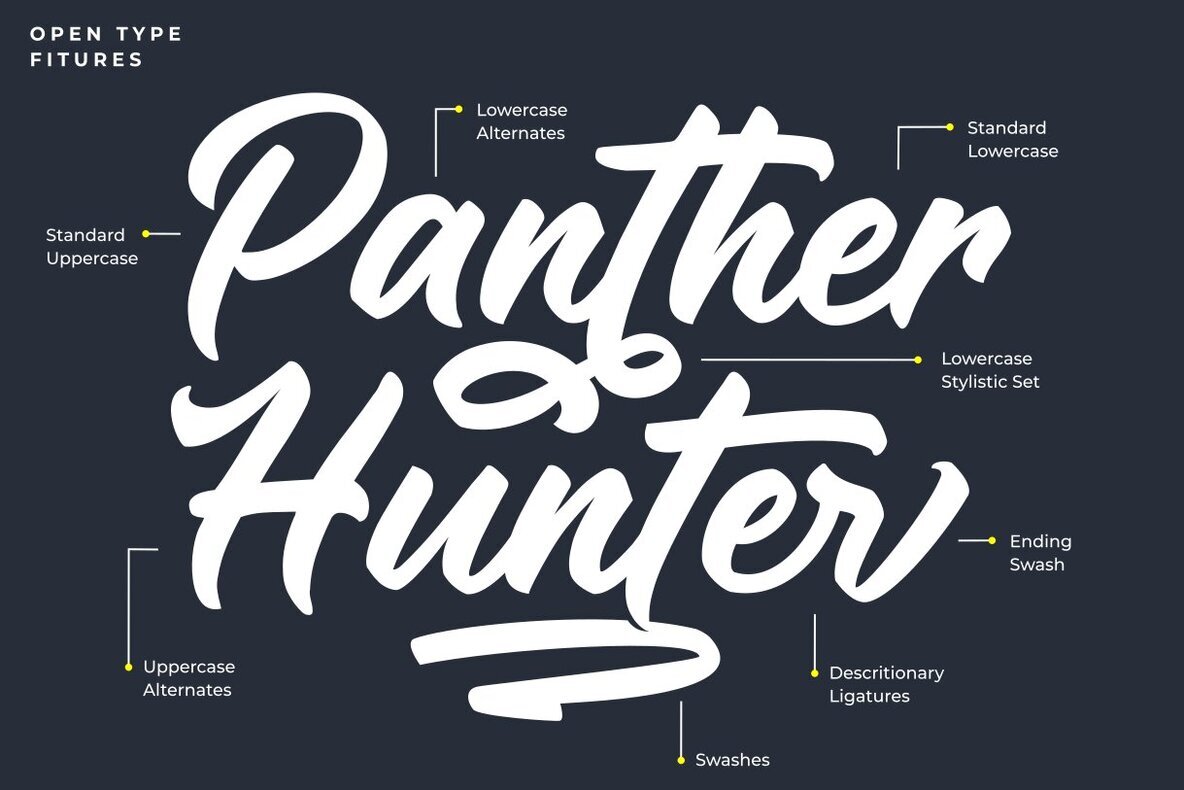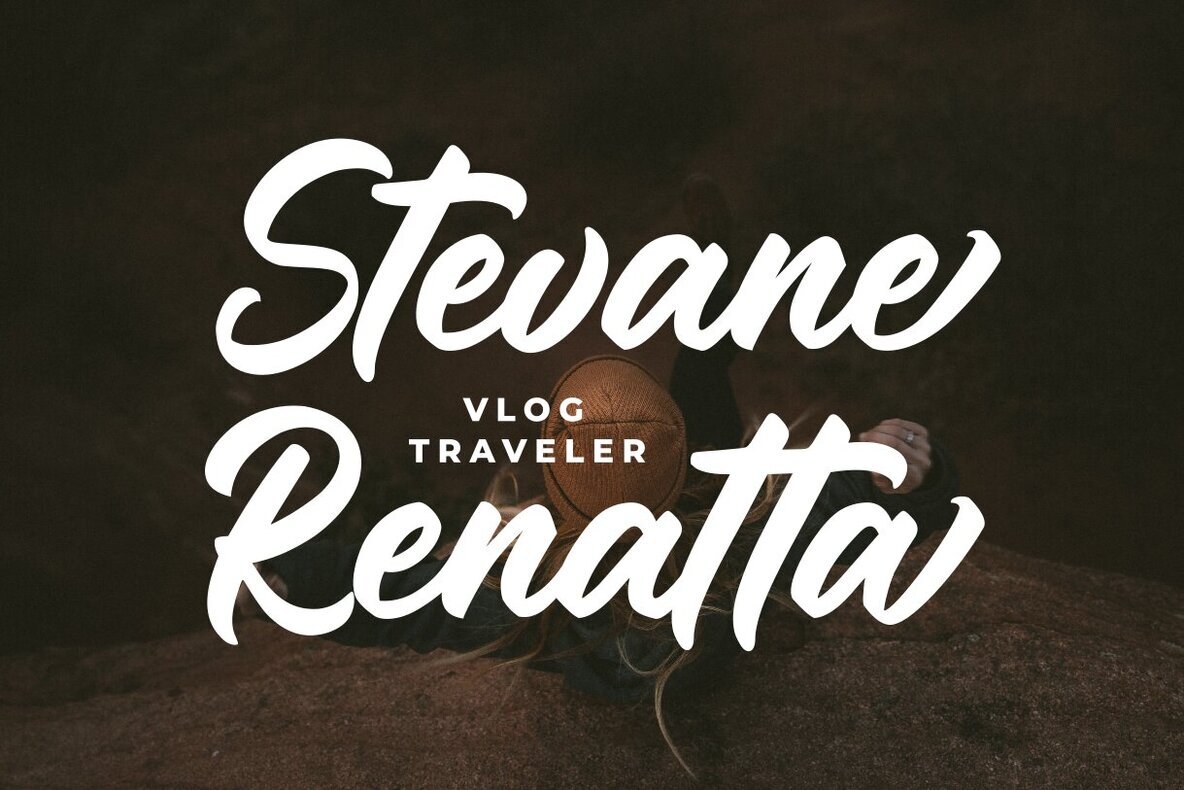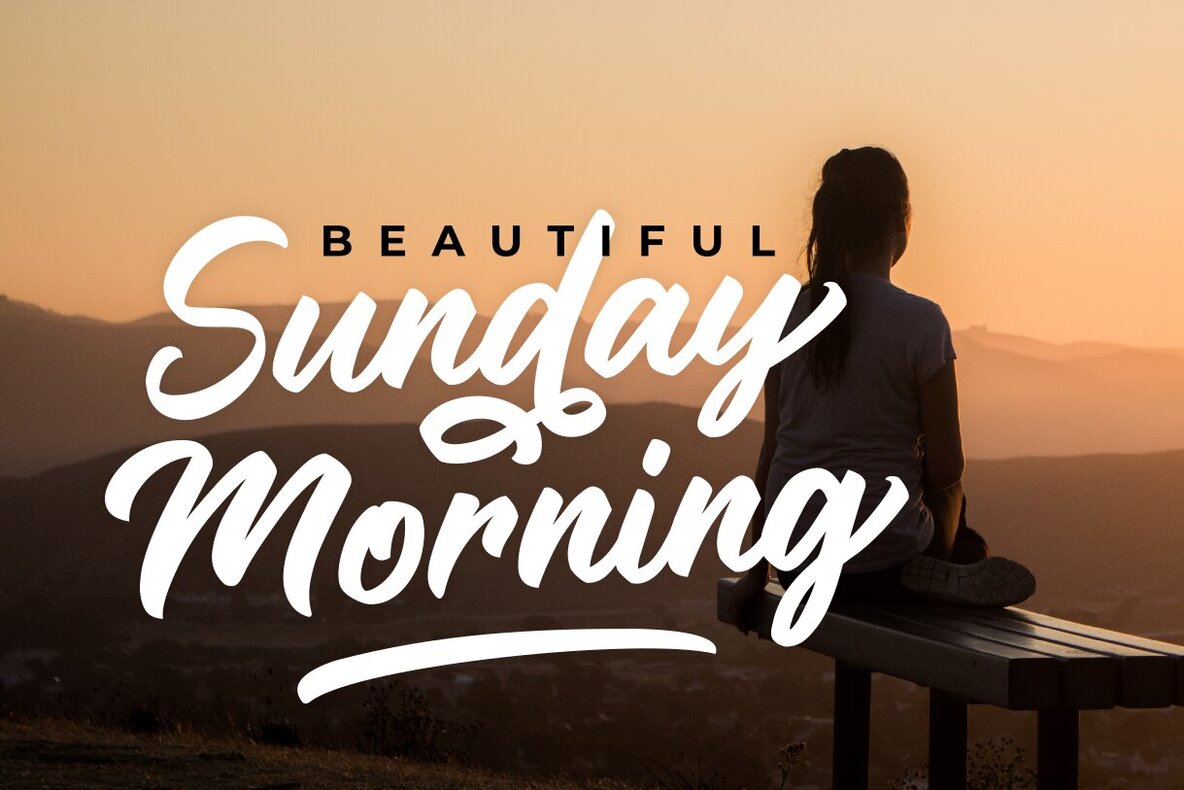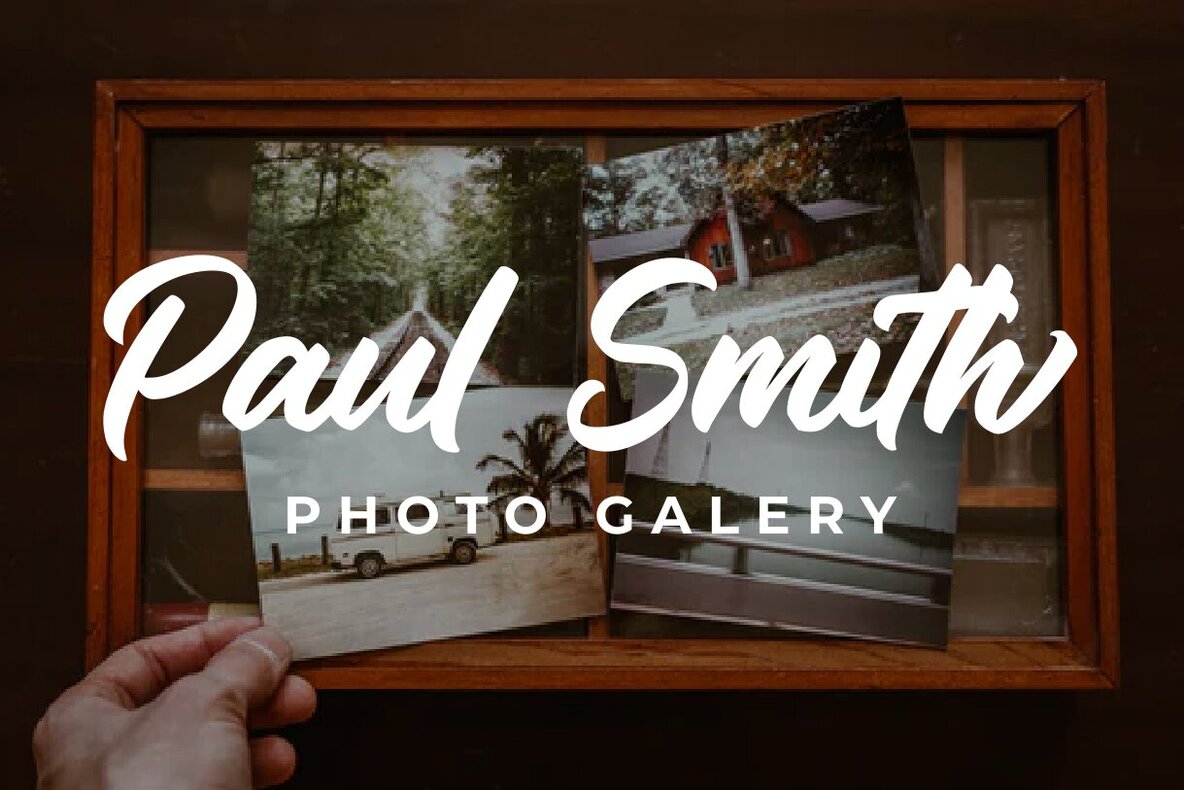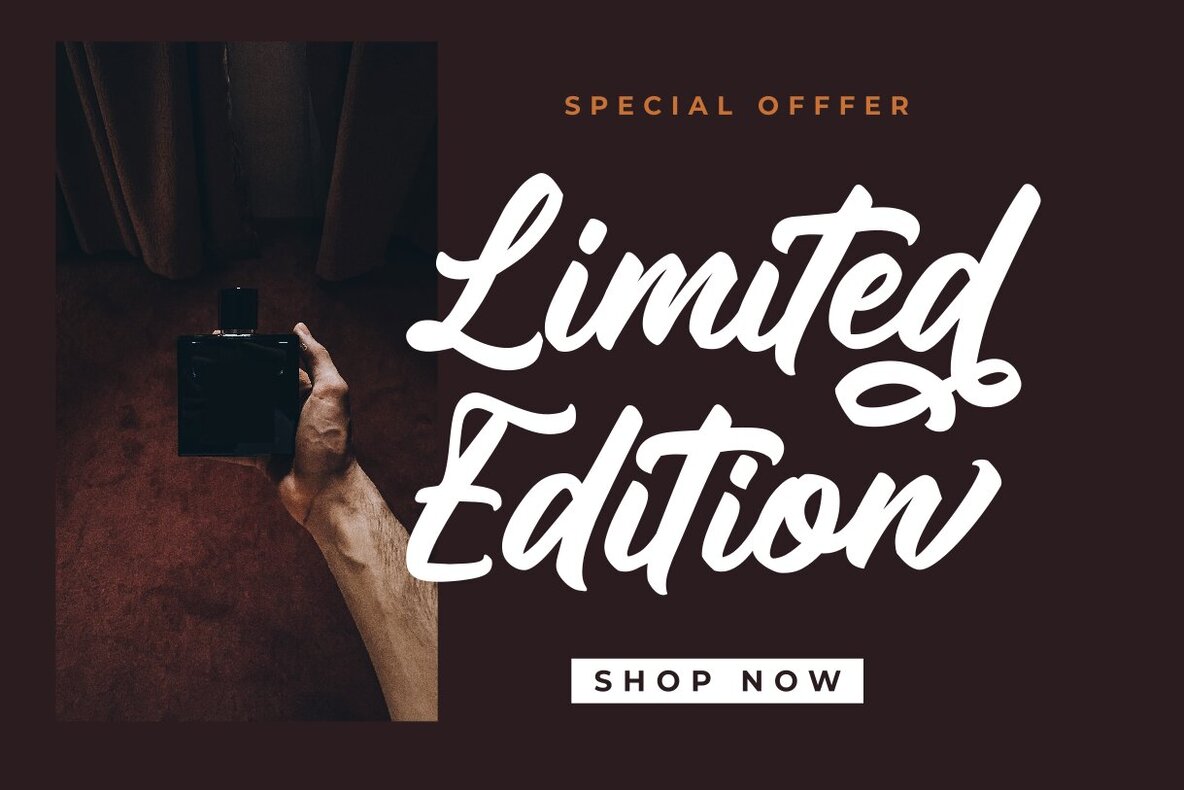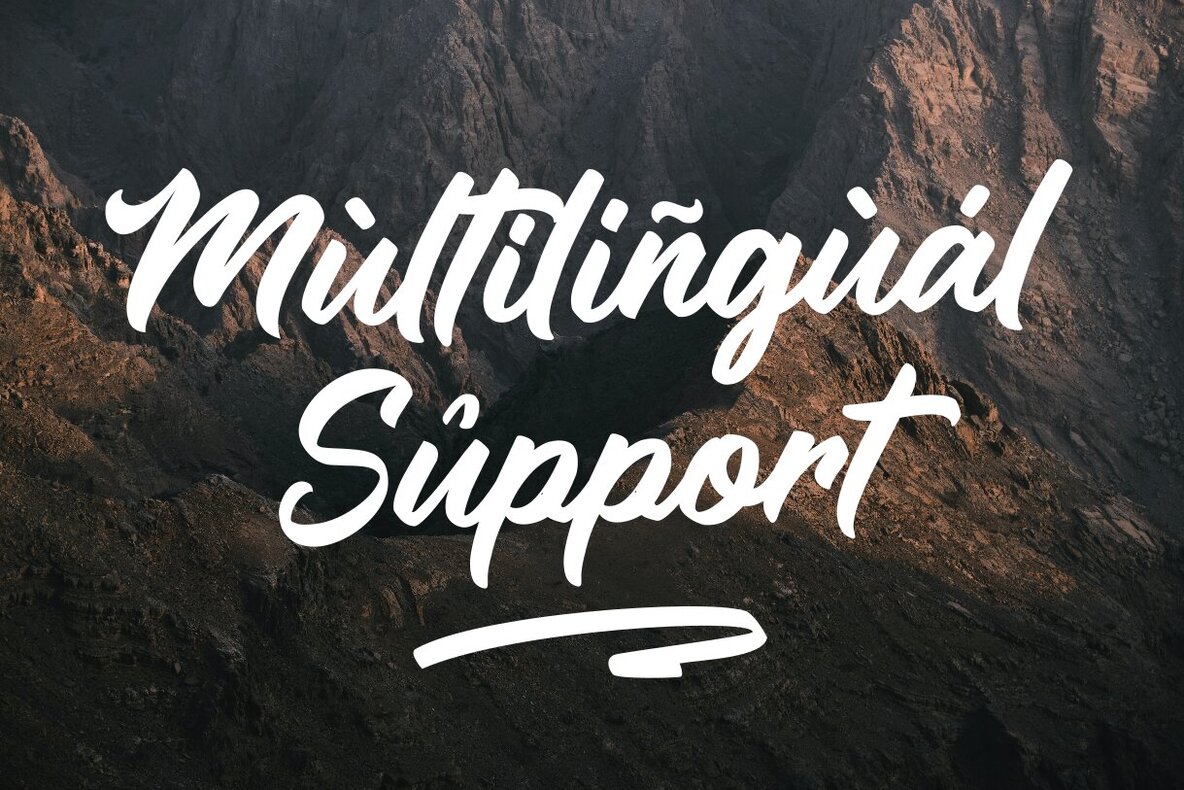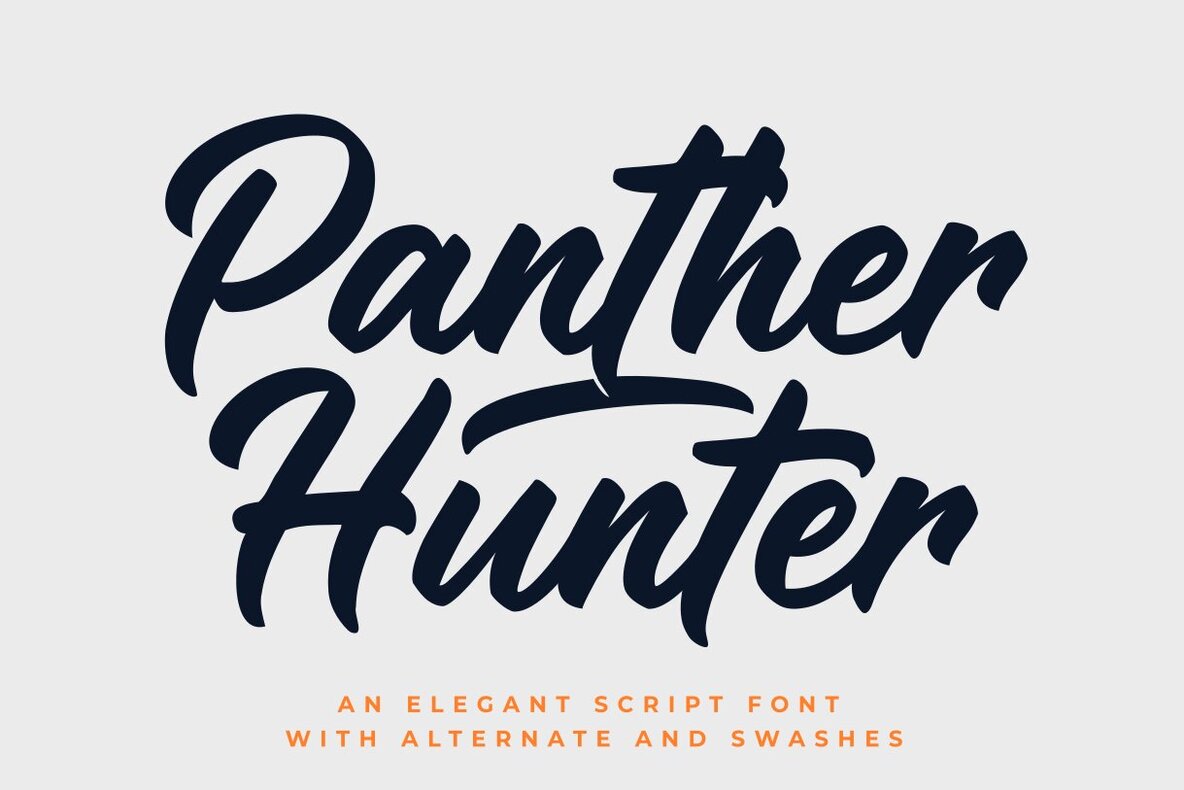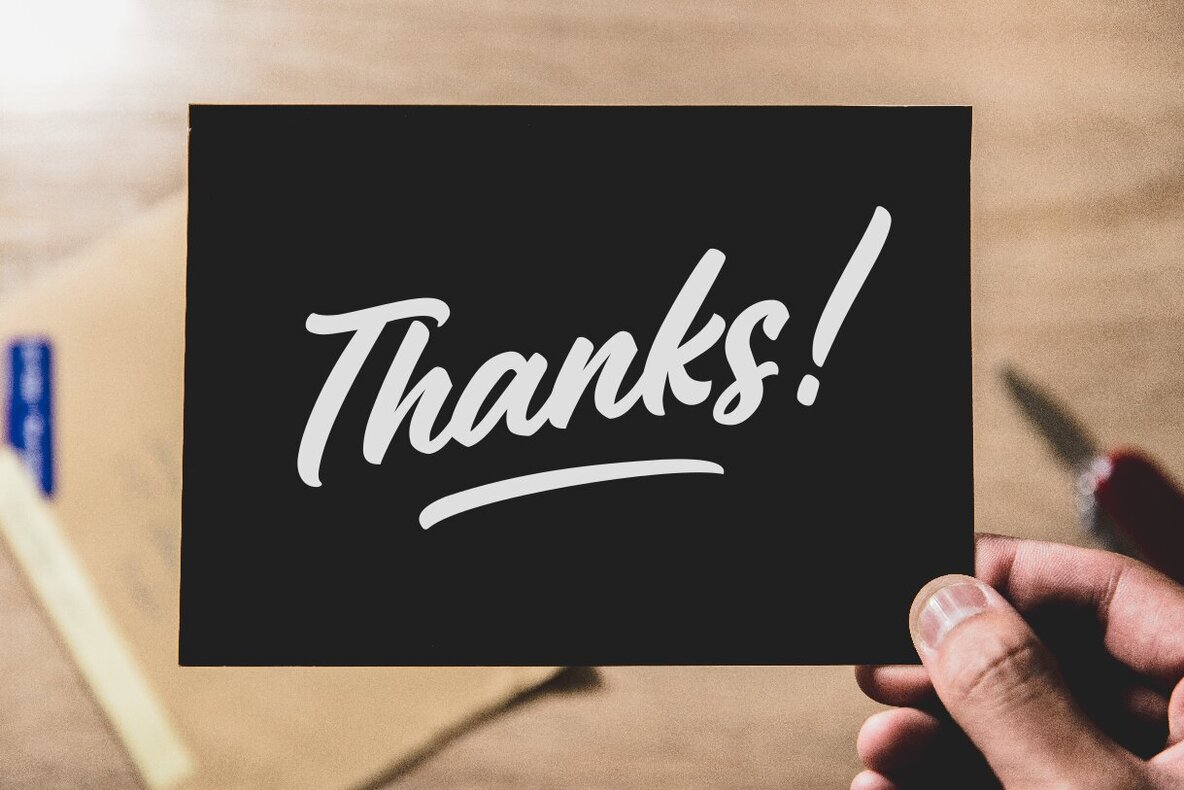
Panther Hunter Font
Boasting an air of sophistication and smooth elegance, Panther Hunter is more than just a hand-lettered script font. Poised by the seasoned expertise of Zeenesia Studio, this font holds the potential to uplift any design to the pinnacle of greatness. It embodies a certain charm, transforming ordinary projects into showpiece designs that are impossible to ignore. Much more than just captivating aesthetics, Panther Hunter is a strategic tool for graphic designers and marketing firms. It is ideal for branding assignments or logotype work where differentiation is key. Those in the packaging industry will also find this font invaluable in creating dynamic and attention-grabbing designs. Furthermore, graphic designers looking to create standout print titles or exclusive T-shirt designs can leverage the unique flair of Panther Hunter. Even those in the food design industry will find its elements add a gourmet touch to their collections. Below are the essential attributes that differentiate Panther Hunter from the plethora: Make your designs roar with Panther Hunter, a font that sets you apart and puts your work center stage.Unleash Your Creativity with Panther Hunter: The Ultimate Script Font by Zeenesia Studio